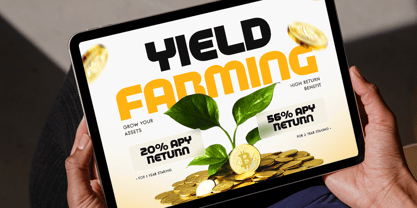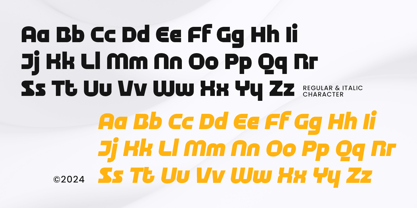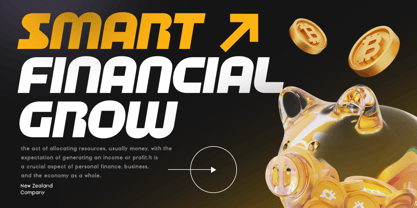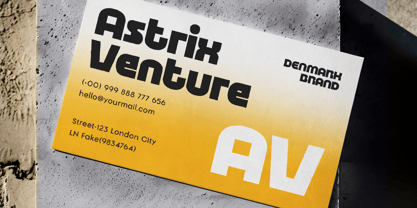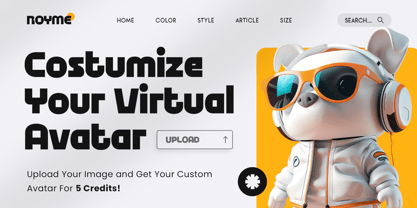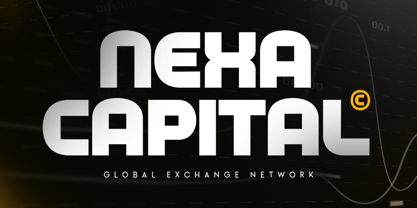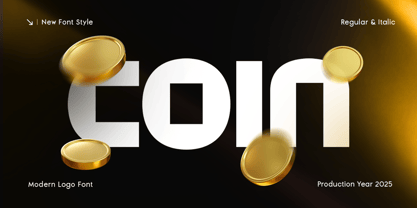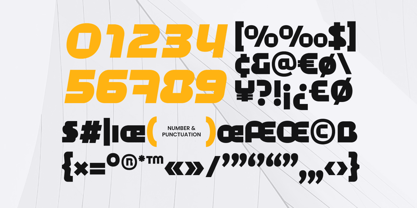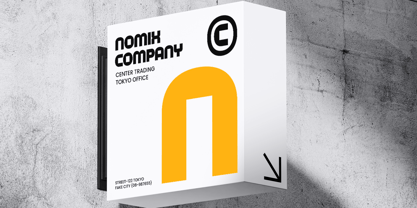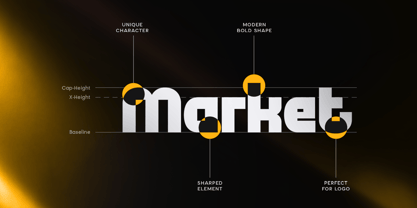
Coin
Die Schriftfamilie Coin wurde von Zamroni Hamzah, Kusnidah Marpuah entworfen und von Dareco Studio veröffentlicht. Coin enthält 2 Stile und Familienpaketoptionen. Mehr über diese Familie
COIN is a modern logo font crafted for brands that value simplicity, precision, and contemporary appeal. With its sleek, clean lines and minimalistic design, COIN offers the perfect solution for creating impactful logos, digital branding, and modern identity systems.
Whether you're building a tech startup, a contemporary product line, or a minimalist brand, COIN ensures your logo stands out with its professional, yet approachable aesthetic. Its bold yet refined letterforms make it versatile for various applications, from business branding to digital platforms.
COIN – Modern Logo Font Features
• Sleek and minimal letterforms ideal for logos and branding
• Clean, modern design that works across various platforms
• Includes uppercase, lowercase, numerals, and punctuation
• Versatile and professional style with great readability
• OpenType features for enhanced typographic styling